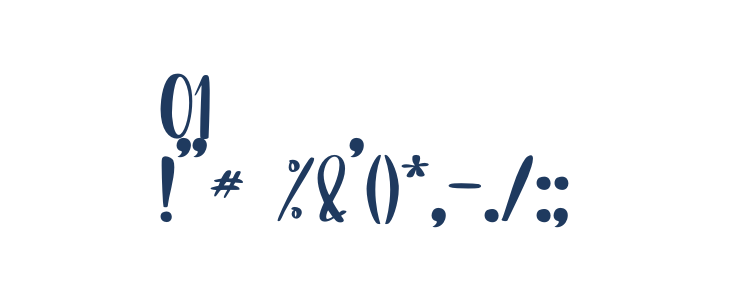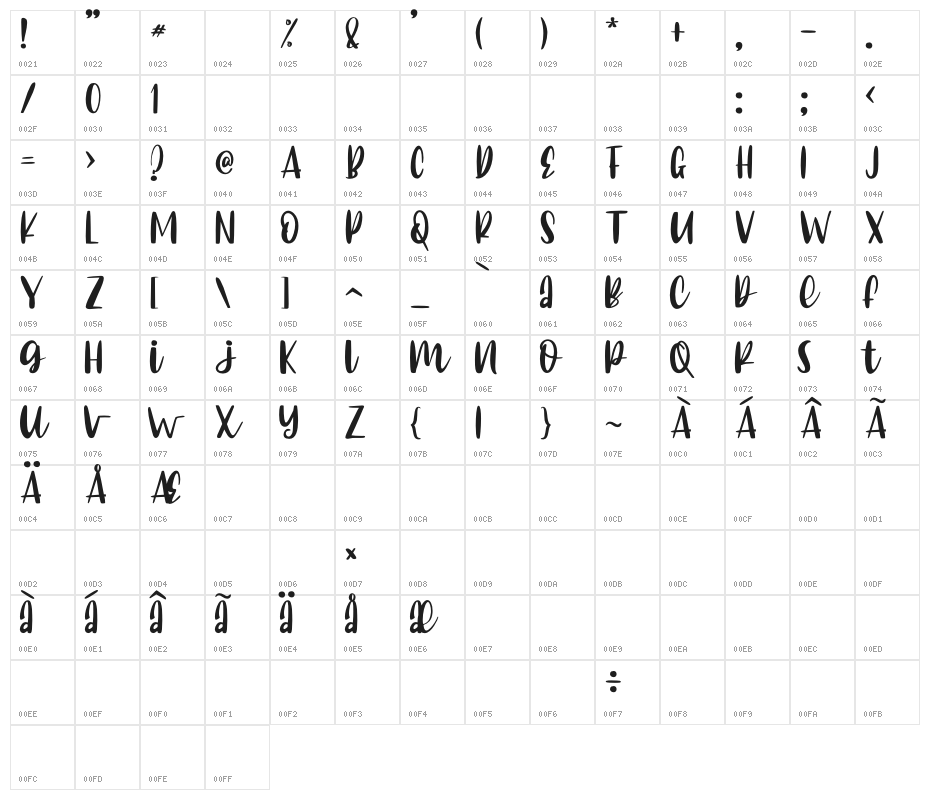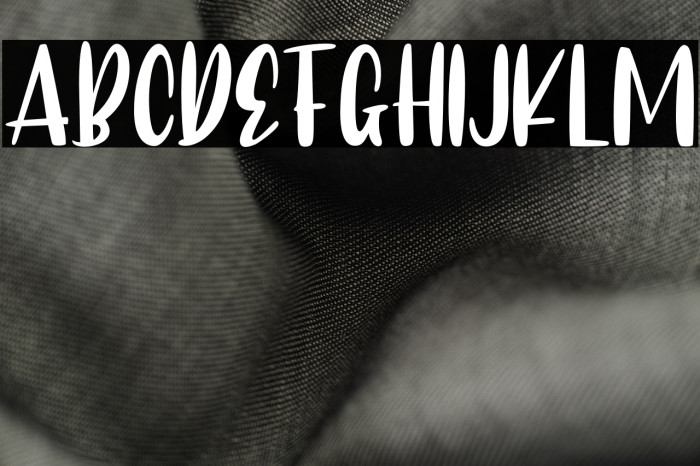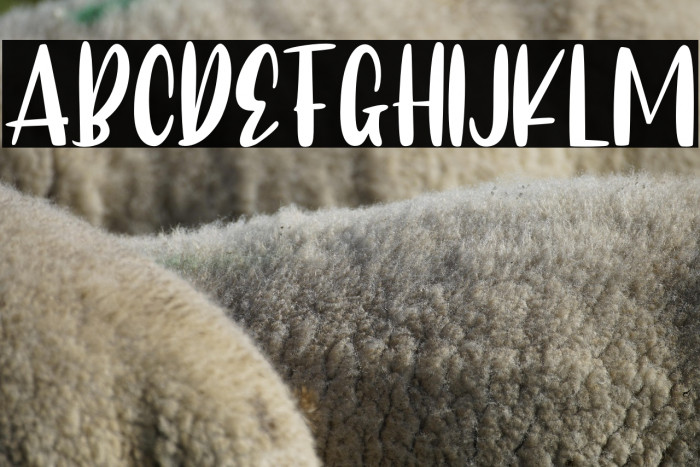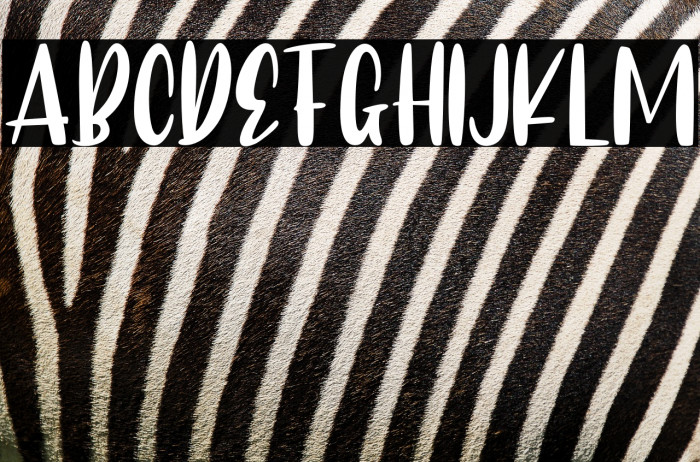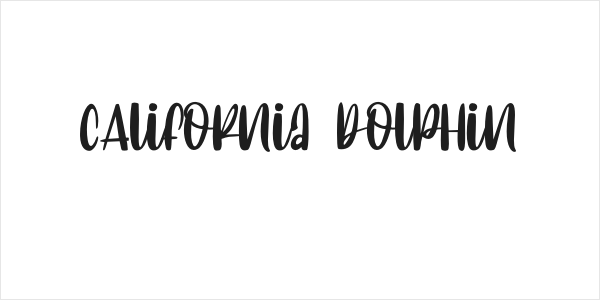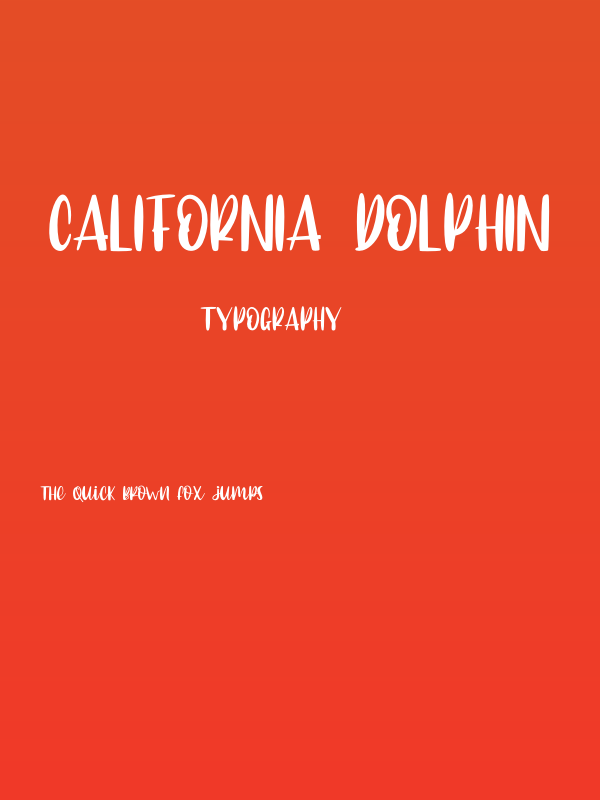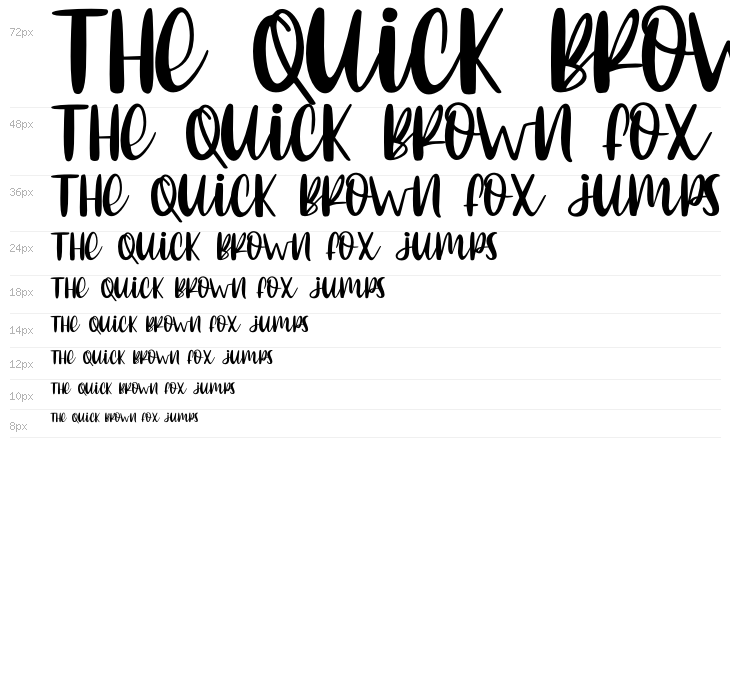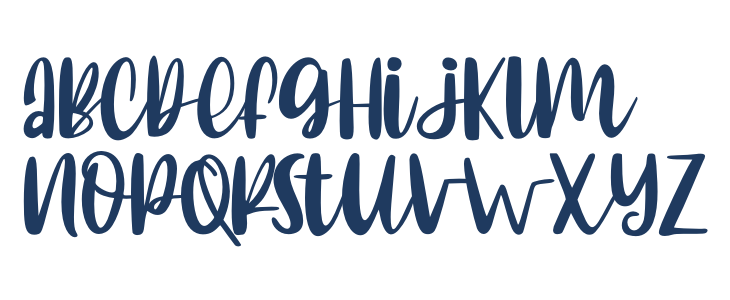
CAlifornia dolphin Font
CAlifornia dolphin Description
This font features a playful and energetic script style with a modern twist. The characters are bold and exhibit a handwritten quality, characterized by smooth curves and varying stroke widths. The uppercase letters are tall and slightly condensed, while the lowercase letters maintain a consistent flow with a casual, yet elegant appearance. The numbers and special characters complement the overall style, adding to its versatility. This font is ideal for projects that require a personal touch, such as invitations, greeting cards, or branding materials. Its dynamic and friendly nature makes it suitable for a wide range of creative applications.
| Proposed Projects | Ideal for invitations, greeting cards, branding, and creative projects requiring a personal touch. |